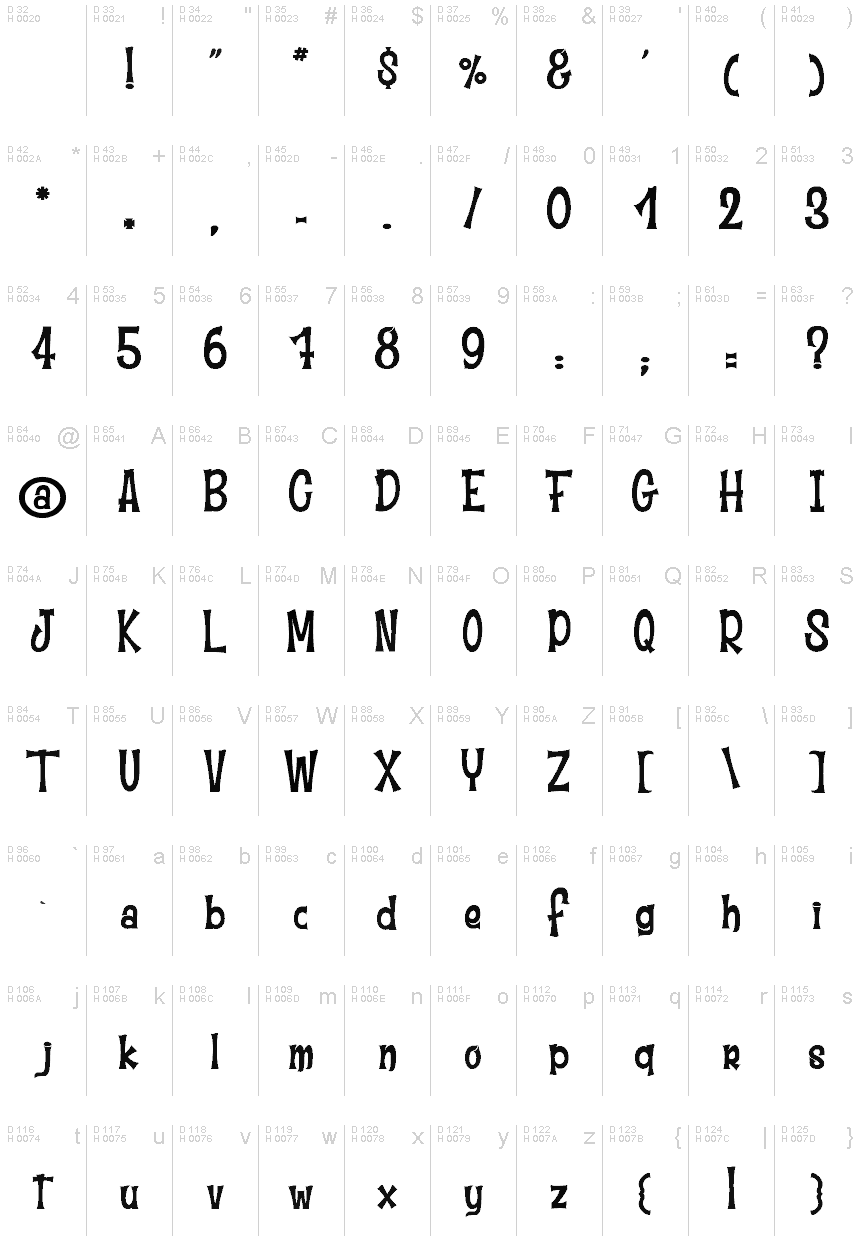
Moustache Club 2
Moustache Club is a bold, whimsical display font that exudes a playful, cartoon-inspired aesthetic. Its thick, elongated strokes and exaggerated curves create a distinctly retro vibe, reminiscent of vintage advertisements and entertainment branding. The font's unique character is further emphasized by its asymmetrical, hand-crafted appearance, lending an authentic, artisanal quality to the design.
This font lends itself particularly well to bold, eye-catching titles, logos, and promotional materials. Its lively personality makes it an excellent choice for branding in the entertainment, hospitality, or lifestyle sectors, where a sense of fun and eccentricity is desired. With its strong personality, Moustache Club is sure to make a memorable impression in any design context.